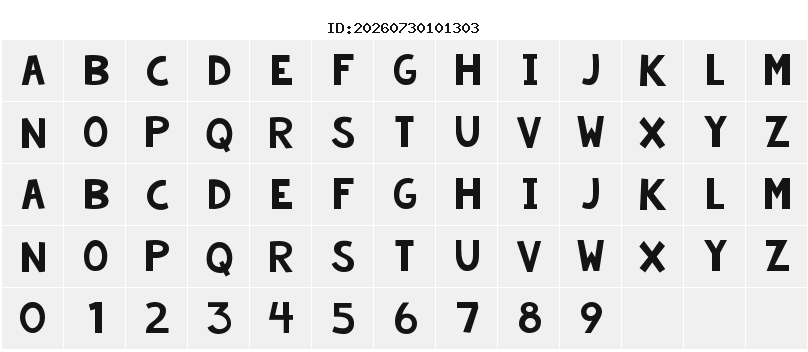
KG Summer Storm Smooth Preview
• Font Name: KG Summer Storm Smooth
• Full Font Name: KG Summer Storm Smooth
• Designer: Kimberly Geswein
• Manufacturer: Kimberly Geswein
About KG Summer Storm Smooth.ttf
KG Summer Storm Smooth.ttf is a modern, elegant sans-serif font designed for ultimate readability and visual harmony. Perfect for branding, headlines, web design, and print materials.